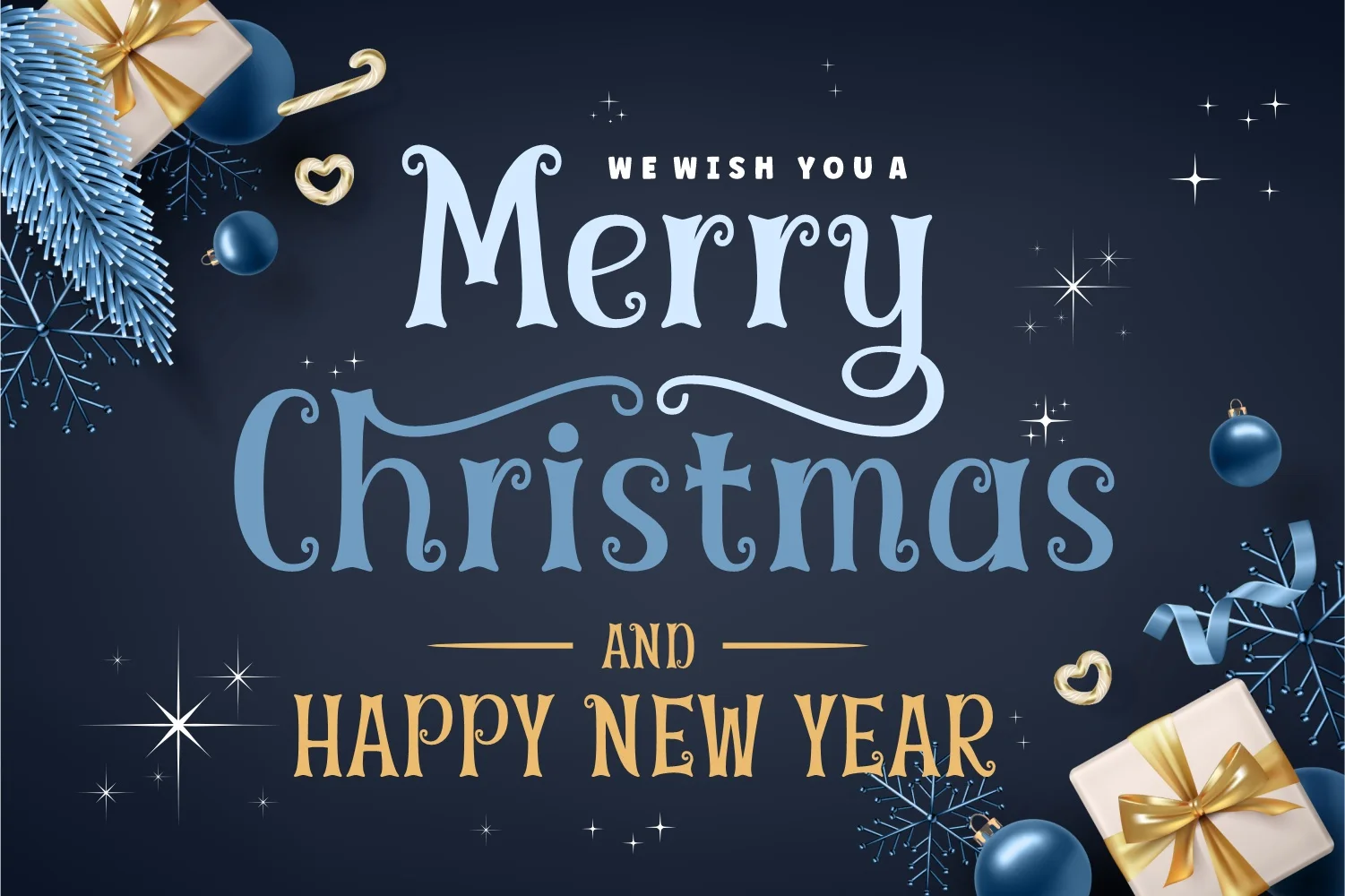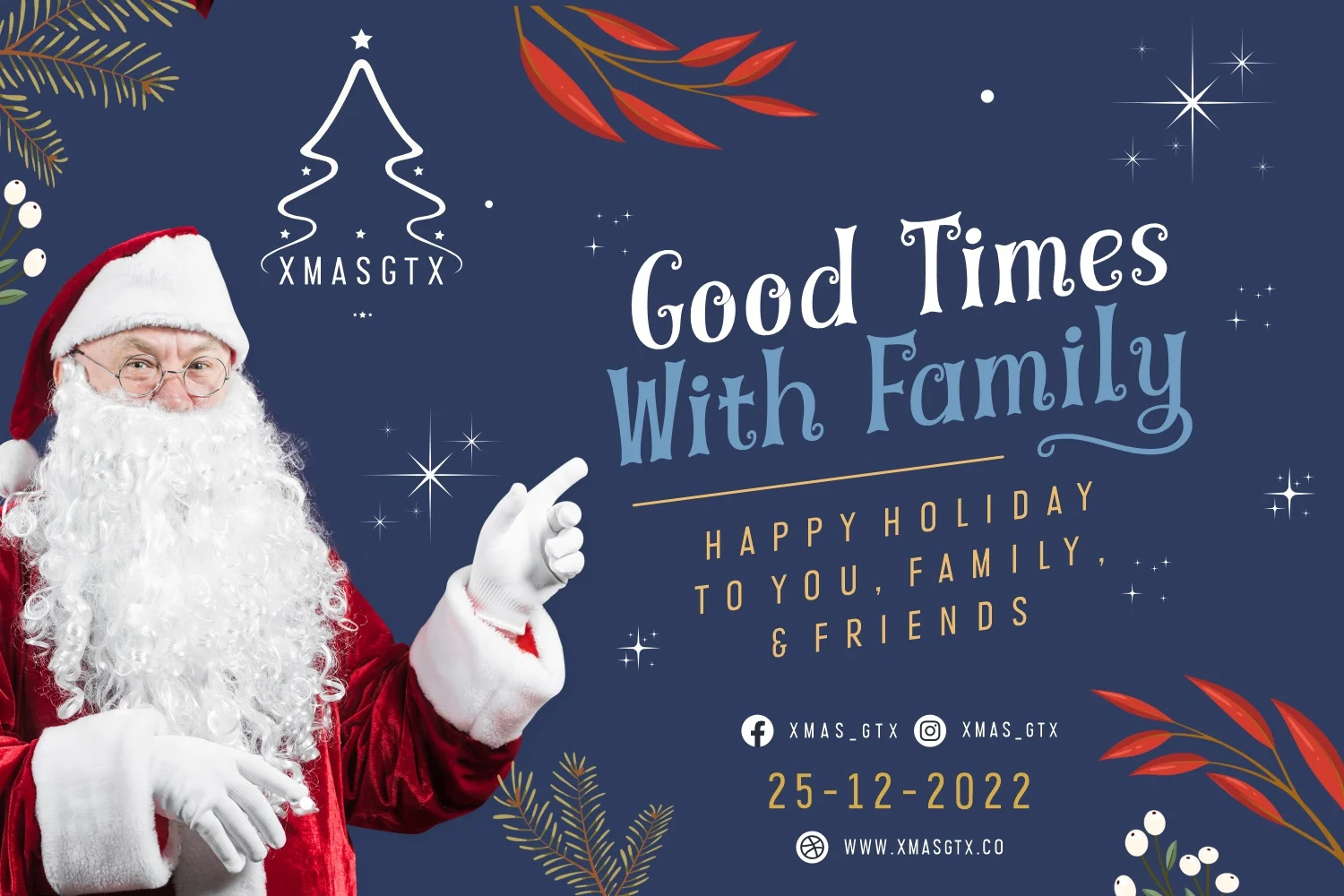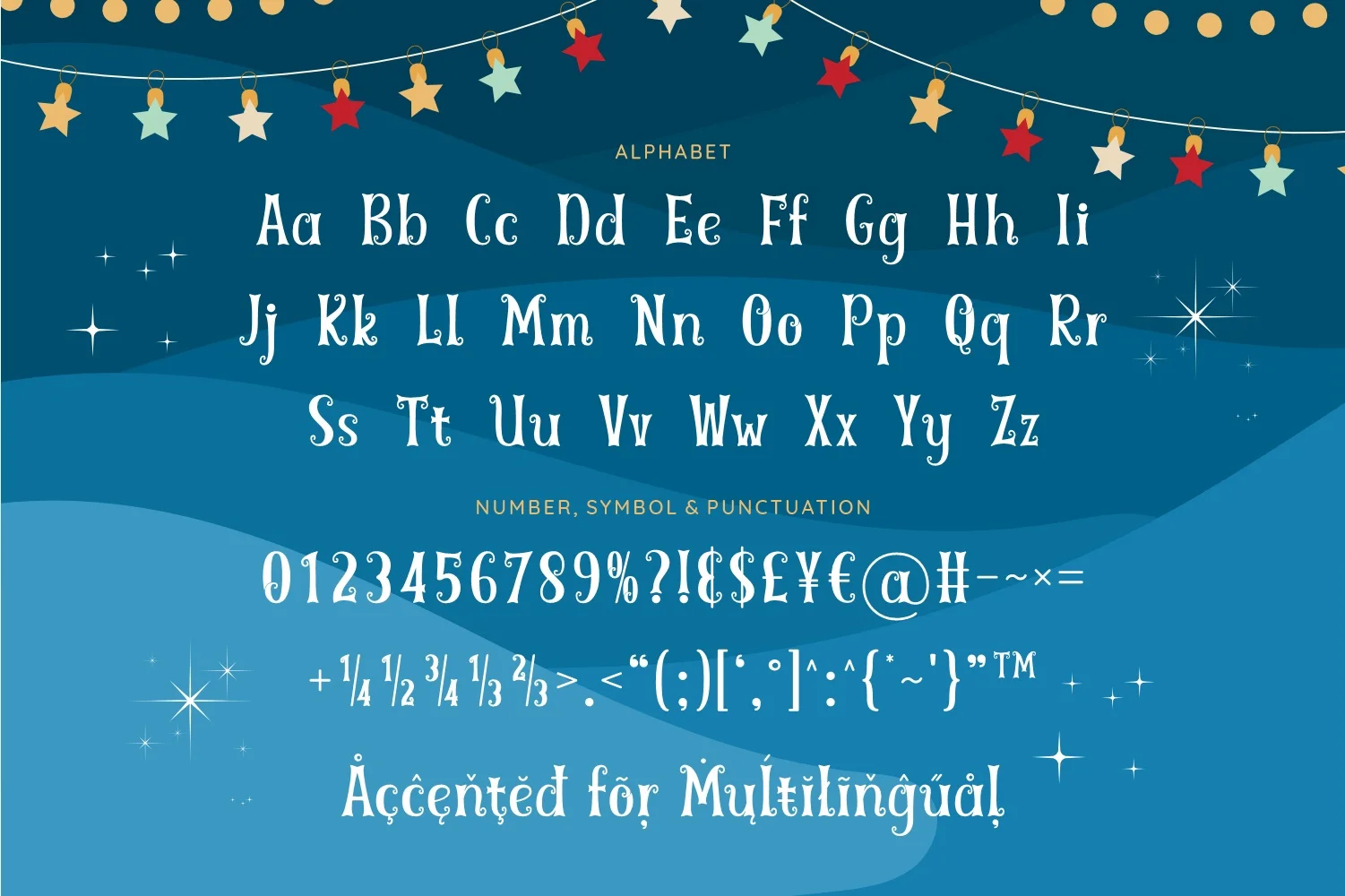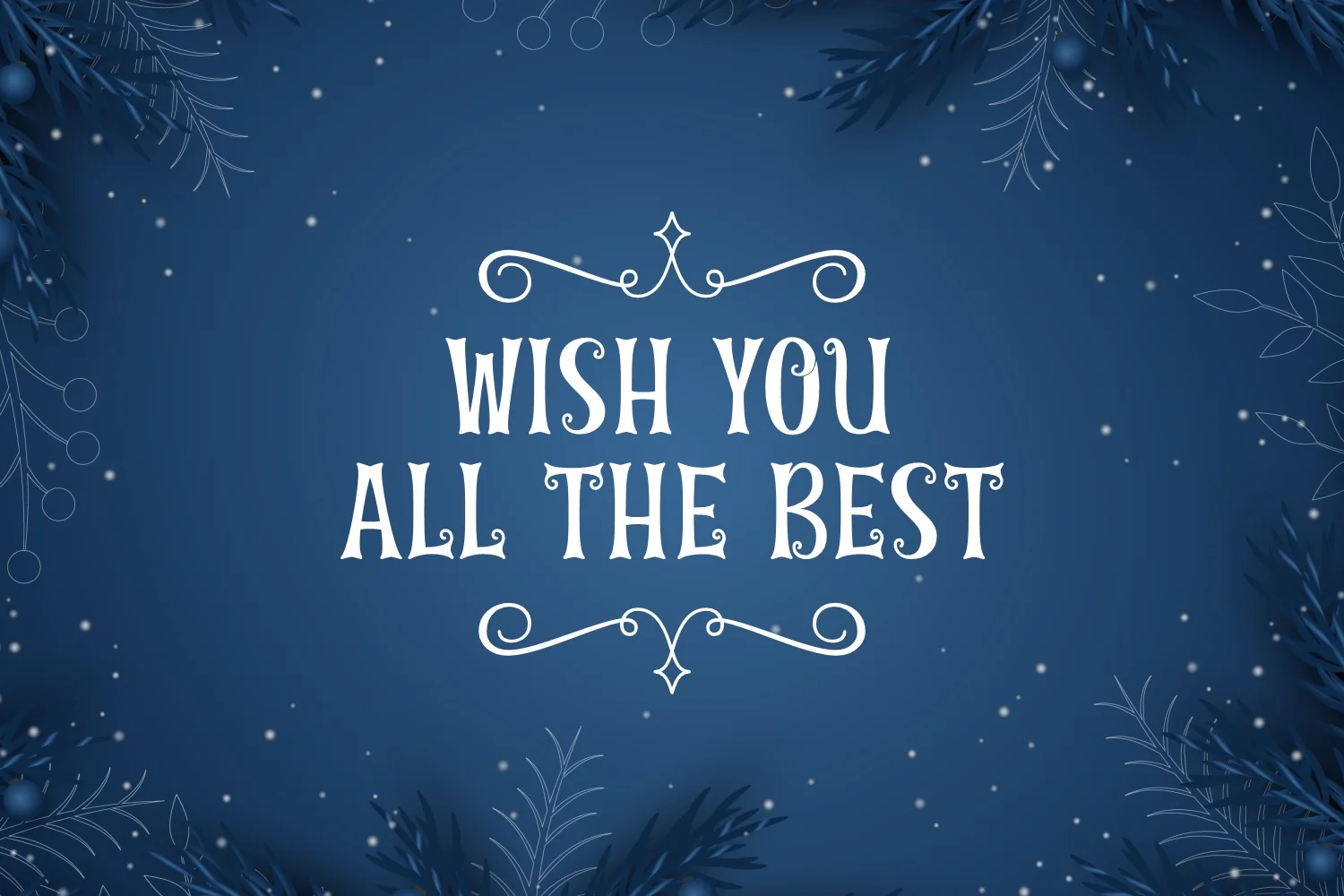
Groovy Christmas Font
This funky font is perfect for retro Christmas celebrations, 70s holiday parties, vintage Christmas advertisements, groovy seasonal decorations, disco Christmas events, psychedelic holiday posters, funky Christmas merchandise, retro holiday branding, vintage Christmas music festivals, and laid-back groovy seasonal communications.
Groovy Christmas Font is exciting because it perfectly captures the cool, free-spirited vibe of 1970s Christmas celebrations through its flowing, organic letterforms that embody the era's emphasis on peace, love, and groovy good times during the holiday season. The font features smooth, curved characters with psychedelic influences and mellow energy that reflect the decade's unique approach to Christmas - combining traditional holiday joy with the laid-back, flower-power aesthetic that defined the groovy generation. Each letter showcases the confident creativity and experimental spirit that made 70s design so distinctive, with swirling details and organic shapes that create text radiating with the same positive energy and "good vibes" that characterized Christmas celebrations during the age of lava lamps and shag carpets. The design perfectly balances nostalgic authenticity with timeless cool, creating typography that feels both genuinely retro and effortlessly stylish.
The Groovy Christmas Font family includes retro-cool variations: Regular, Bold, Light, Far-Out, and Mellow versions. The collection features special groovy elements including peace sign flourishes, flower power accents, swirl details, and psychedelic ornaments. Additional components include groovy borders, retro frames, far-out decorations, and cool ornamental designs that enhance the font's groovy Christmas appeal and create cohesive 70s holiday themes.
Retro event planners and vintage enthusiasts will find Groovy Christmas Font to be a perfect tool for creating authentic 70s holiday communications that transport audiences back to the era when Christmas met the counterculture movement. This authentically styled font transforms ordinary retro messaging into far-out expressions that capture the unique cultural moment when traditional Christmas values merged with the groovy generation's ideals of peace, love, and universal harmony.
The typeface includes comprehensive character support with authentic groovy styling that maintains excellent readability while conveying the cool, peaceful spirit of 70s Christmas celebrations. The font's psychedelic design ensures stunning results across both nostalgic applications and contemporary retro-themed holiday projects.
Perfect for vintage Christmas parties, retro holiday brands, 70s-themed celebrations, and groovy seasonal marketing, this font delivers authentic visual impact that communicates peace, love, and the uniquely cool Christmas spirit of the groovy era when holiday celebrations were totally far-out and wonderfully mellow.